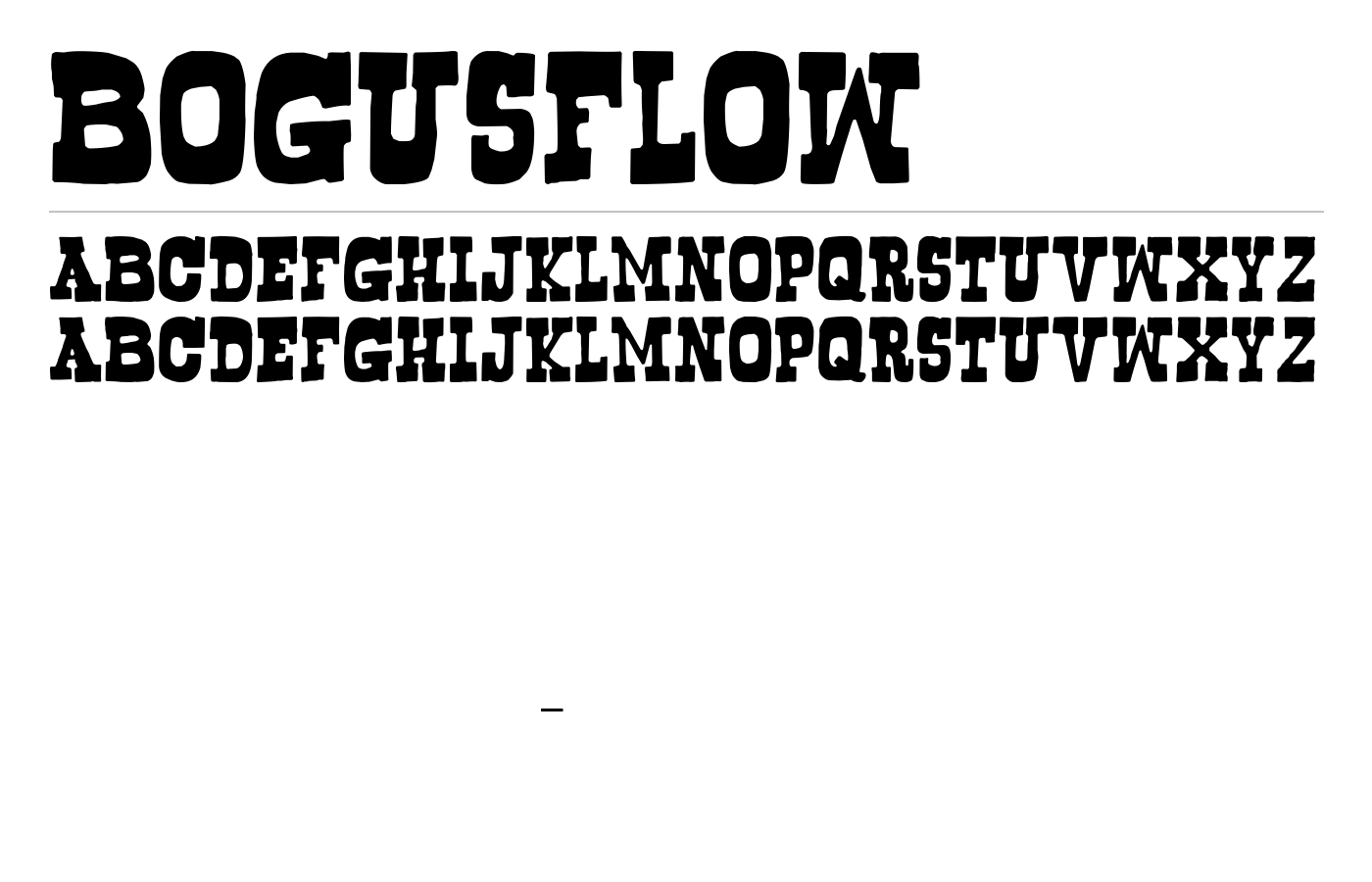
Bogusflow is a bold, condensed slab serif font with a playful, slightly rugged personality. Its thick, uneven strokes and strong serifs give it a vintage, hand-crafted feel that works well for eye-catching headlines, signage, and branding with a quirky or retro vibe. This typeface is ideal for projects seeking a distinctive, informal look that stands out with character and charm.
Bogusflow Font